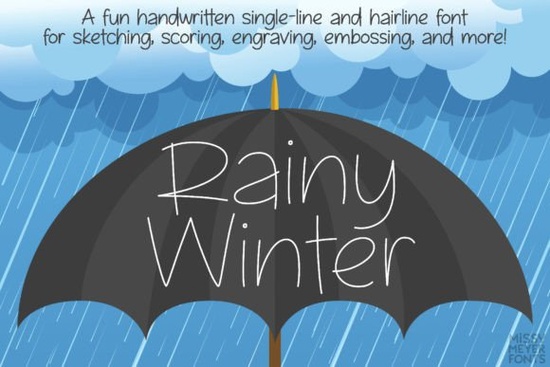
Rainy Winter (single Line) Font
If you've been searching for a single-line font that actually works the way you need it to, Rainy Winter (single Line) font is worth a close look. It's a fun, cute, handwritten typeface built from scratch as a single-line font not converted from a standard solid font. Whether you're working with a foil quill, sketch pen, or engraving tool, this font gives you clean, continuous strokes that machines love.
What Exactly Is a Single-Line Font?
A single-line font (sometimes called a hairline font) draws each letter using one continuous stroke instead of outlining the shape. That means your pen plotter, Cricut sketch pen, or Glowforge scoring tool traces the letter in a single pass no double lines, no filled shapes.
Regular fonts create an outline and fill it in. Single-line fonts skip that. They're designed specifically for tools that draw or engrave with a nib, stylus, or laser. If you've ever tried to use a normal font with a foil quill and gotten messy, overlapping lines, you already know why single-line fonts matter.
What Makes Rainy Winter Stand Out?
Plenty of single-line fonts are just conversions someone takes a regular font and removes one side of the outline. That often leads to weird artifacts and uneven strokes. Rainy Winter was created entirely from scratch as a single-line font, which means every curve and connection was intentional.
Here's what you get with this font:
• Over 900 glyphs far more than most single-line fonts offer
• A–Z, a–z, numbers, and punctuation for everyday use
• 350 extended Latin characters for broad language support
• 100 Greek characters (uppercase and lowercase)
• 200 Cyrillic characters (uppercase and lowercase)
• 18 fractions and extra punctuation marks
• 40 double-letter ligatures for a natural handwritten flow
• Alternates for a and g so you can pick single- or double-storey styles
That kind of glyph coverage is rare in single-line fonts. If you're creating multilingual designs or need special characters, this font has you covered in ways that many alternatives don't. For comparison, something like Like Magic is a lovely script font, but it's not built for single-line applications the way Rainy Winter is.
Which Version Should You Choose One or Two?
This font comes in two formats, and picking the right one depends on your software:
• Rainy Winter One A true single-line font made from a single continuous stroke. This works in CNC programs like Rhinoceros and can be edited in vector software like Illustrator, Inkscape, or Affinity Designer. Some design programs will automatically close the stroke, so if you're comfortable editing vector paths, this version gives you the most control.
• Rainy Winter Two A hairline font where the strokes are so close together they look like a single line. This version works right out of the box in Silhouette Studio, Cricut Design Space, CorelDRAW, Adobe Illustrator, Inkscape, and Affinity Designer. No editing needed just type and go.
What Can You Use Rainy Winter For?
This font is built for any project where a tool draws or engraves letters with a single line:
• Foil quill projects on cardstock and invitations
• Sketch pen work in Cricut Design Space or Silhouette Studio
• Laser engraving and Glowforge scoring
• Infusible ink pen designs
• Pen plotter art and calligraphy machines
It's especially nice for wedding stationery, personalized gifts, and holiday crafts. The handwritten style feels warm and personal without being messy. If you also work with solid script fonts, you might want to pair it with something like the Sublimate font for complementary print-and-cut projects, or explore the Better Together font for layered design work.
Important note: Single-line and hairline fonts are not for regular printing, word processing, or vinyl cutting. They won't show up if you print them on a standard printer they're meant exclusively for tools that draw with a nib or stylus.
How Does It Compare to Other Script Fonts?
If you browse Creative Fabrica's script fonts category, you'll find lots of beautiful handwritten options. Fonts like Sophia offer elegant solid strokes, while others in the catalog focus on different moods and styles. What sets Rainy Winter apart is that it was purpose-built for single-line use, with the glyph depth and two-format flexibility that most competitors lack.
Since the font includes a solid-version workaround (just add a stroke in a vector program and expand it), you essentially get two fonts in one purchase a single-line version and a potential solid version.
Rainy Winter is a thoughtful, well-built single-line font with real depth. If your creative work involves drawing letters rather than printing them, it belongs in your toolkit.